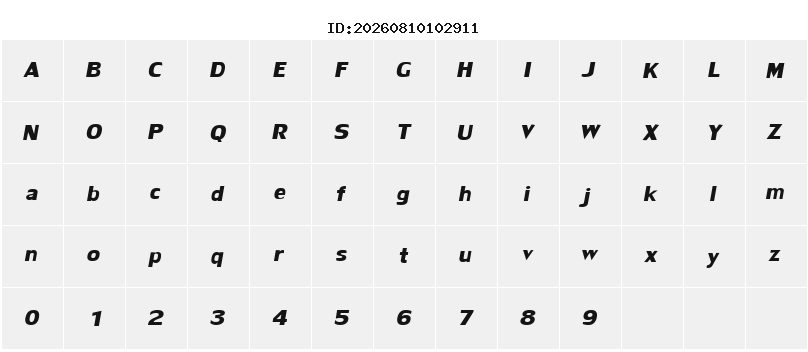
P5 LilyUPC Preview
• Font Name: P5 LilyUPC
• Font ID: FontMonger:LilyUPC Bold Italic
• Full Font Name: P5 LilyUPC Bold Italic
• PostScript Name: LilyUPCBoldItalic
About P5 LilyUPC.ttf
P5 LilyUPC.ttf is a modern, elegant sans-serif font designed for ultimate readability and visual harmony. Perfect for branding, headlines, web design, and print materials.